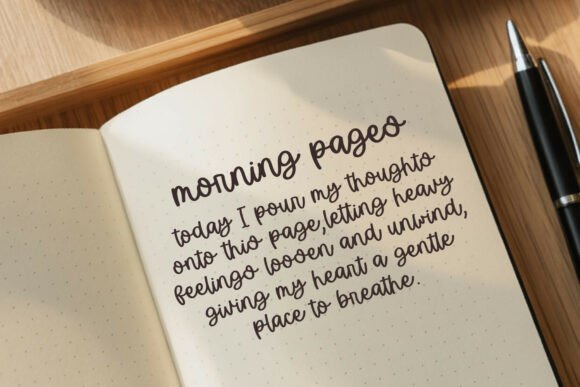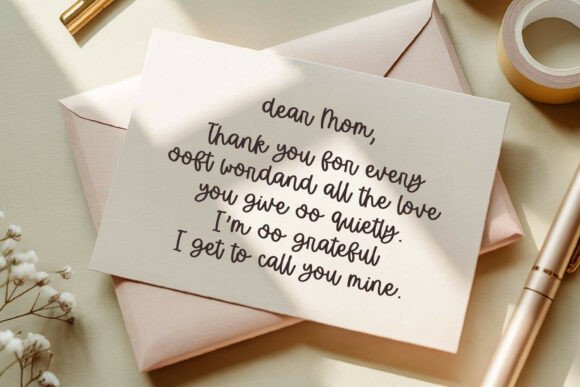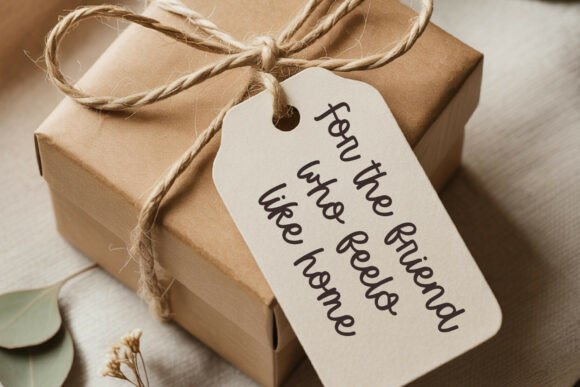
Introduction to Gentle Letters Font
Soft, sincere, and cozyβ€”Gentle Letters is not just a font, it’s a vibe.
πŸ‘€ Author BitongType
This bouncy cursive script feels like a real note from someone who cares, with gentle curves and relaxed strokes that keep every message warm and human Use Gentle Letters for morning pages, β€œdear me” notes, thank-you cards, introvert quotes, kindness T-shirts, handmade candle labels, and all the little reminders you want to write with heart.
Why Choose Gentle Letters Font?
Gentle Letters Font offers exceptional quality and versatility, making it a valuable addition to your design toolkit. Whether you’re creating for personal projects or commercial use, Gentle Letters Font delivers professional results.